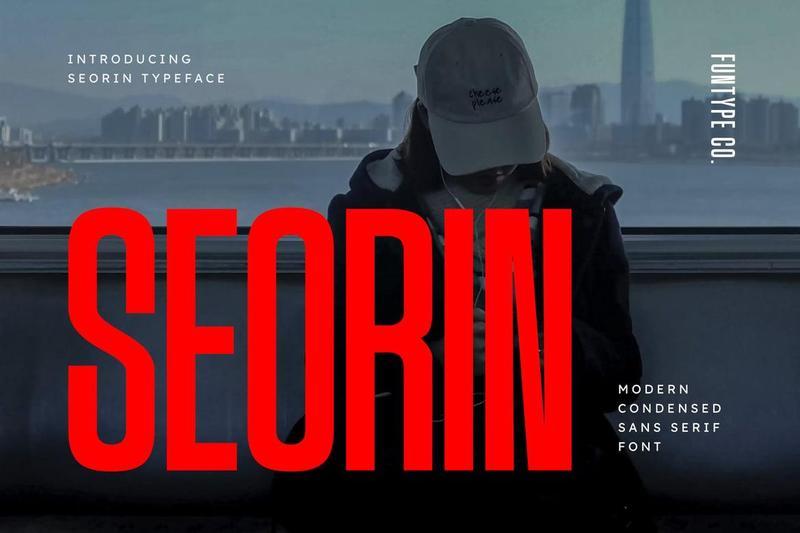
**Seorin Modern Condensed Sans Serif Font**
**Seorin** is a bold, high-impact, and modern condensed sans serif font, purposefully engineered to introduce a commanding structural weight, intense visual scale, and exceptional space utility into contemporary display layouts. Developed with a towering vertical footprint, compact horizontal tracking, and clean geometric cuts, Seorin delivers a premium professional aesthetic that projects immense cinematic presence and urban sophistication.
This font family is the definitive choice for creative directors, digital publication editors, and multimedia producers looking to establish a space-efficient, heavyweight typography identity for prominent text hierarchies. Whether you are constructing advanced digital broadcast overlays, high-energy travel and documentary titles, cinematic movie posters, corporate tech presentation headers, or prominent website splash banners, Seorin stands out with supreme clarity and structural confidence.
**Main Features:**
– Modern Condensed Sans Structure: Optimized with an ultra-narrow horizontal profile for dense, space-saving, and high-impact title compositions.
– Towering Vertical Dimensions: Elongated heights meticulously crafted to secure instant audience attention and visual hierarchy.
– Refined Geometric Aesthetic: Sleek linear tracking balanced with subtle curved outer corners that secure a clean, contemporary finish.
**Best Used For:**
Cinematic action movie titles, digital broadcasting layouts, city travel documentary headers, modern architectural signage panels, technology infrastructure headers, large-scale web splash banners, and prominent vlogging media overlays.